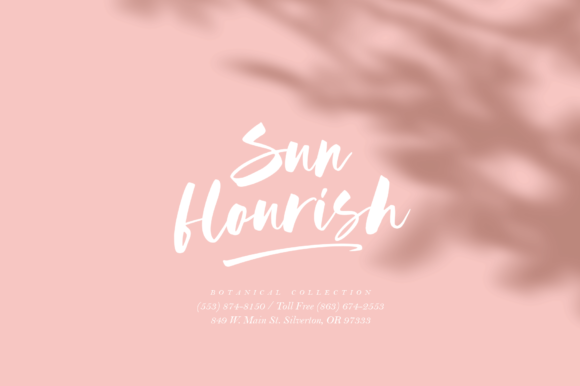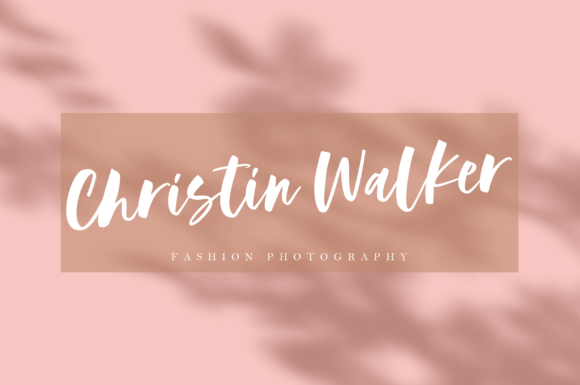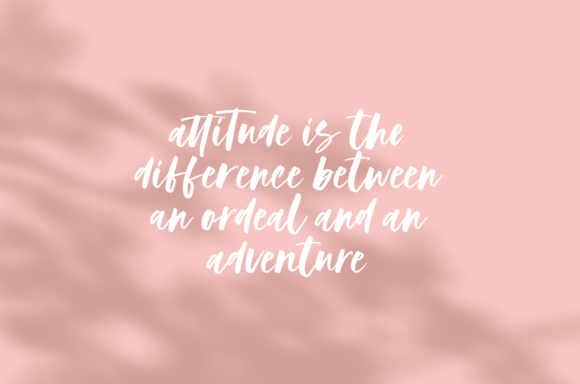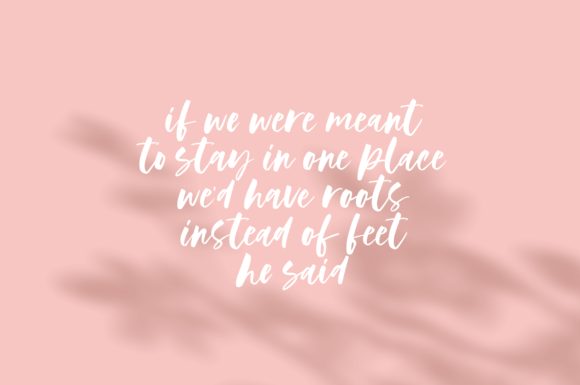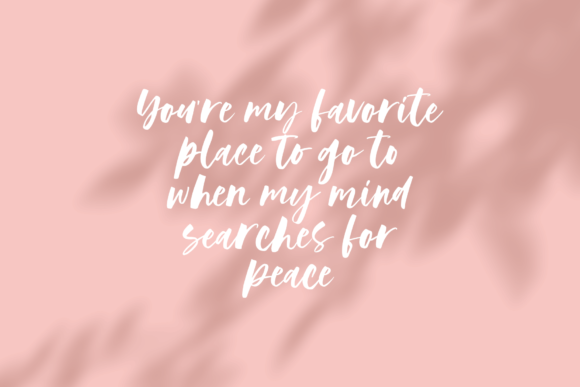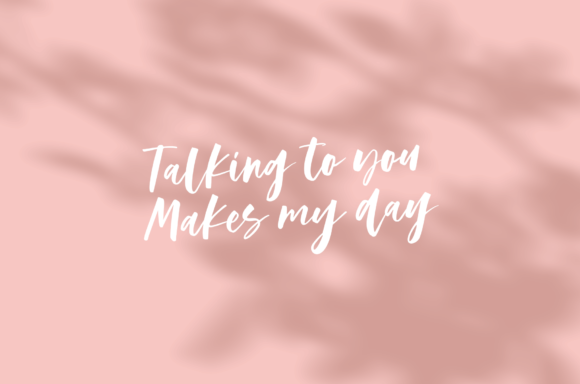
Austine Font: A Bold and Modern Script Font for Your Creative Projects
Austine is a bold and modern script font that has been making waves in the design community. With its quirky and unique style, Austine looks incredibly adept on a wide variety of contexts, making it a versatile and go-to font for designers and crafters alike. In this article, we’ll dive into the world of Austine font, exploring its features, uses, and benefits, as well as provide tips and inspiration for incorporating it into your creative projects.
What is Austine Font?
Austine is a script font that boasts a bold and modern aesthetic. Its quirky and charming style sets it apart from more traditional fonts, making it perfect for designers looking to add a touch of personality to their work. Whether you’re creating a logo, branding materials, or social media graphics, Austine is sure to make a statement.
Key Features of Austine Font
- Bold and Modern Style: Austine’s bold and modern style makes it perfect for headlines, titles, and other attention-grabbing elements.
- Quirky and Unique: Austine’s quirky and unique style sets it apart from more traditional fonts, making it perfect for designers looking to add a touch of personality to their work.
- Versatile: Austine looks great on a wide variety of contexts, from digital media to print materials.
- Easy to Read: Despite its bold and quirky style, Austine is surprisingly easy to read, making it perfect for body text and other longer-form content.
Uses of Austine Font
Austine is a versatile font that can be used in a wide range of creative projects. Here are some ideas to get you started:
- Logos and Branding: Austine’s bold and modern style makes it perfect for logos and branding materials.
- Social Media Graphics: Austine’s quirky and unique style makes it perfect for social media graphics, including Facebook posts, Instagram stories, and more.
- Headlines and Titles: Austine’s bold and modern style makes it perfect for headlines and titles.
- Invitations and Cards: Austine’s elegant and sophisticated style makes it perfect for invitations and cards.
Benefits of Using Austine Font
So why should you use Austine font in your creative projects? Here are just a few benefits:
- Adds Personality: Austine’s quirky and unique style adds a touch of personality to your work.
- Stand Out: Austine’s bold and modern style helps your work stand out from the crowd.
- Versatile: Austine can be used in a wide range of creative projects, from digital media to print materials.
- Easy to Use: Austine is surprisingly easy to use, even for beginners.
Tips for Using Austine Font
Here are a few tips for using Austine font in your creative projects:
- Use it Boldly: Austine’s bold and modern style is perfect for headlines and titles.
- Experiment with Colors: Austine looks great in a wide range of colors, so don’t be afraid to experiment.
- Pair it with Other Fonts: Austine pairs well with a wide range of other fonts, so don’t be afraid to get creative.
Inspiration for Using Austine Font
Need some inspiration for using Austine font in your creative projects? Here are a few ideas:
- Look to Fashion and Beauty: Austine’s bold and modern style is reminiscent of fashion and beauty brands.
- Experiment with Different Contexts: Try using Austine in different contexts, such as digital media, print materials, and more.
Austine font is a bold and modern script font that is perfect for designers and crafters looking to add a touch of personality to their work. With its quirky and unique style, Austine looks incredibly adept on a wide variety of contexts, making it a versatile and go-to font for creative projects. Whether you’re creating a logo, branding materials, or social media graphics, Austine is sure to make a statement.